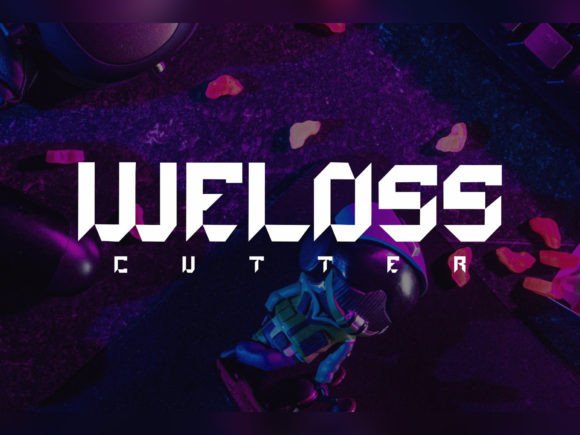
Dive into the realm of visual eloquence with Weloss Cutter, the modern and cool display font that will transform your design endeavors into captivating masterpieces. Crafted with meticulous attention to detail by the talented artnivora.std, Weloss Cutter exudes an aura of sophistication and originality that will leave an indelible mark on your audience.
Unleash your creativity and let Weloss Cutter elevate your projects to new heights of aesthetic allure. Its meticulously crafted characters, each a testament to typographic artistry, will add a touch of distinction to your designs. From logos that command attention to social media graphics that pop, Weloss Cutter is the font that turns ordinary designs into extraordinary spectacles.
With its crisp and clean lines, Weloss Cutter effortlessly conveys a sense of professionalism and authority. It is the perfect choice for creating formal documents, business presentations, and marketing materials that demand attention. Its readability and clarity ensure that your message will be communicated with impact, leaving a lasting impression on your audience.
But Weloss Cutter is more than just a practical font; it is an artistic expression that ignites the imagination and breathes life into your designs. Its unique letterforms, inspired by the allure of vintage typography, evoke a sense of nostalgia and charm. Whether you're designing retro-inspired posters, eye-catching flyers, or captivating invitations, Weloss Cutter will transport your audience to an era of timeless elegance.
In the world of fonts, versatility is king, and Weloss Cutter reigns supreme. Its adaptability knows no bounds, effortlessly transitioning from the rigidity of formal settings to the playful realm of personal expression. Its diverse range of applications extends from branding and web design to packaging and product labels. With Weloss Cutter as your creative companion, the possibilities are endless.
Don't settle for ordinary fonts that blend into the background. Embrace the power of Weloss Cutter and watch as your designs metamorphose into stunning works of art. Its captivating presence will elevate your projects to new heights of visual appeal, leaving your audience spellbound.